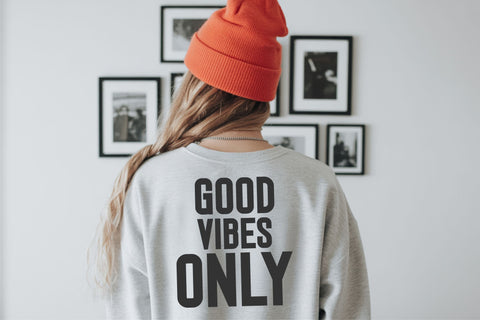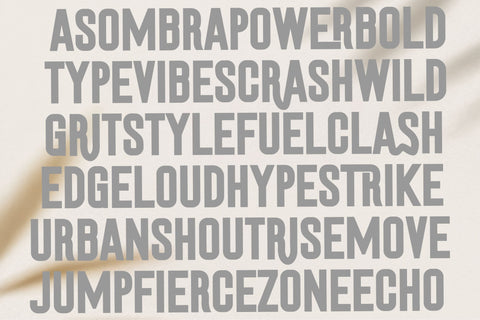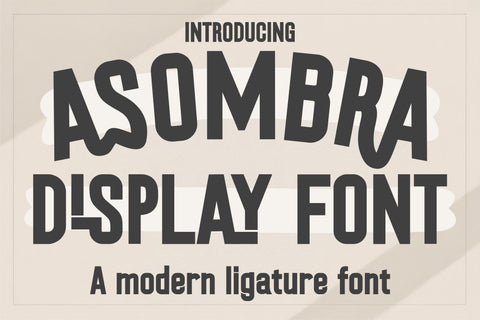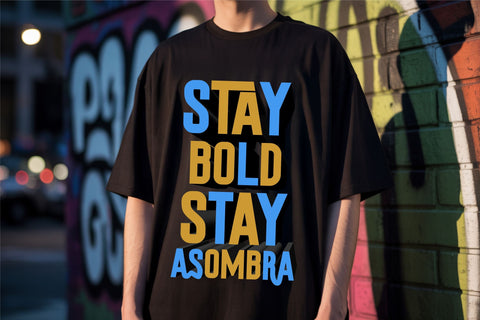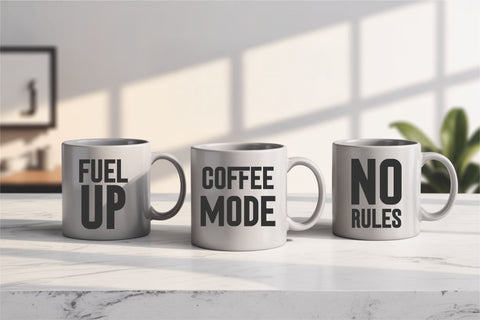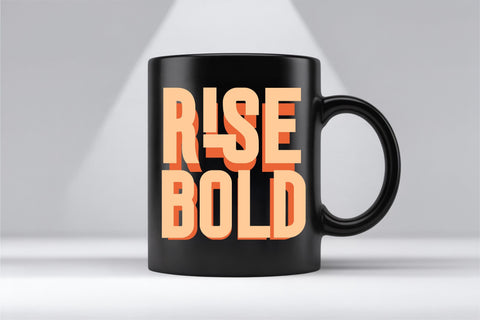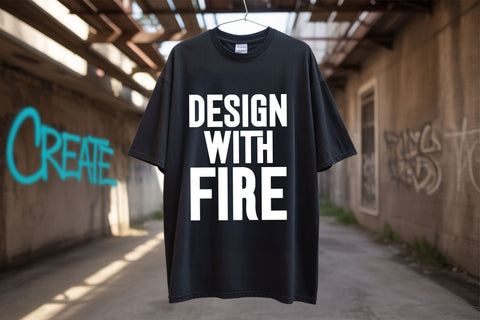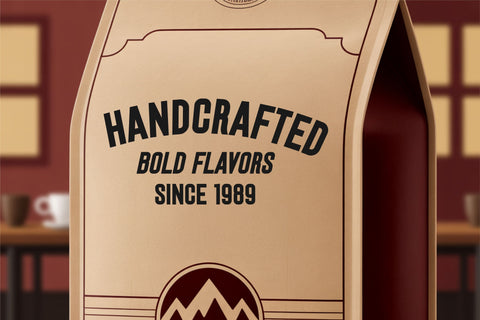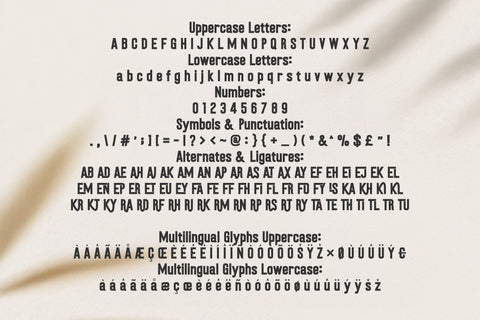
Asombra is a bold sans font with tall block letters and a strong retro style, perfect for eye-catching designs. Ideal for Cricut crafts, teacher printables, modern logos, and display projects, Asombra brings confident energy to your creative work. Whether you're making t-shirts, classroom signs, Procreate graphics, or standout branding, this typeface delivers clarity and boldness. Includes uppercase, lowercase, numbers, and full punctuation. Works great in Canva, Procreate, and cutting machines like Cricut and Silhouette. Add personality to every project with a font designed to stand out.